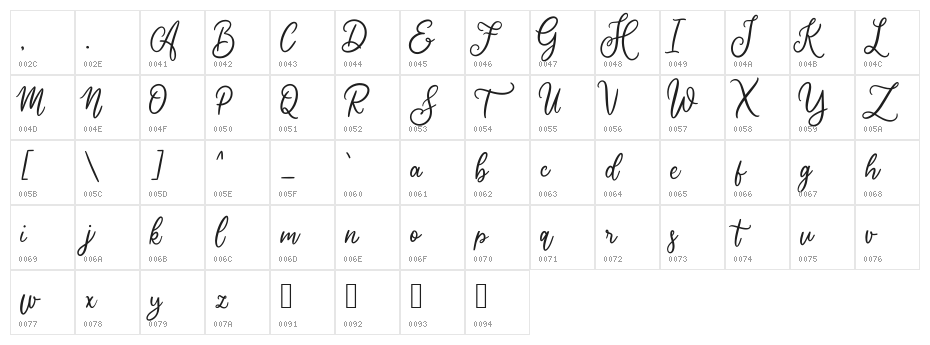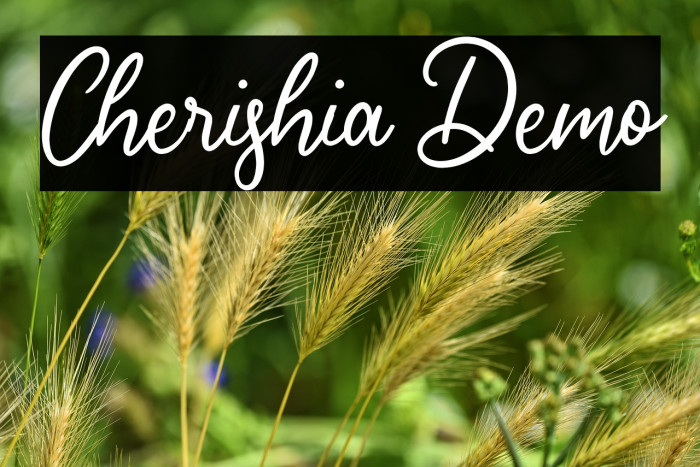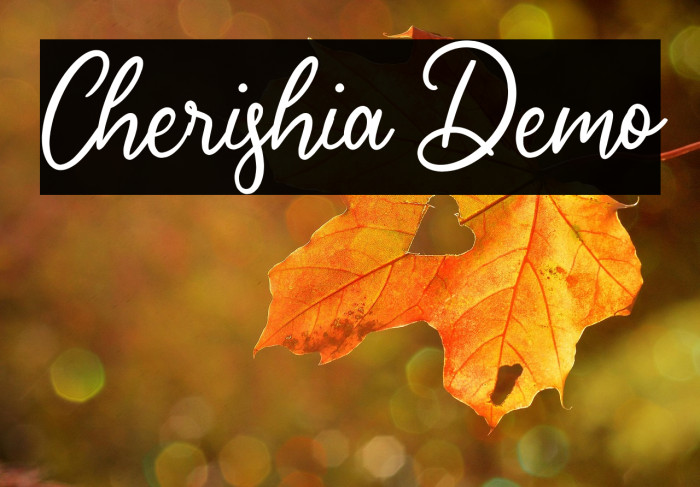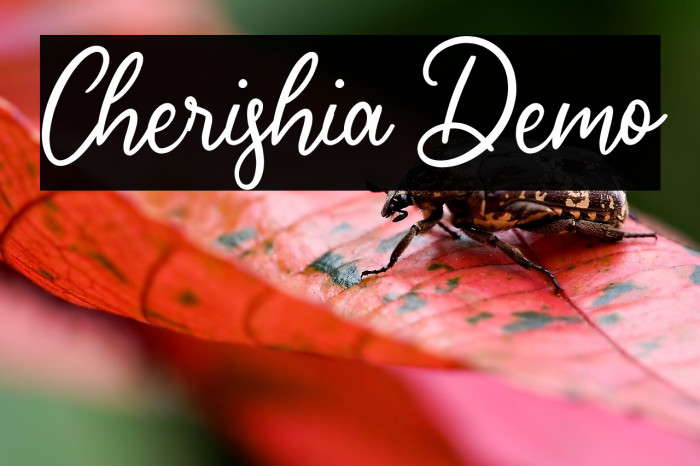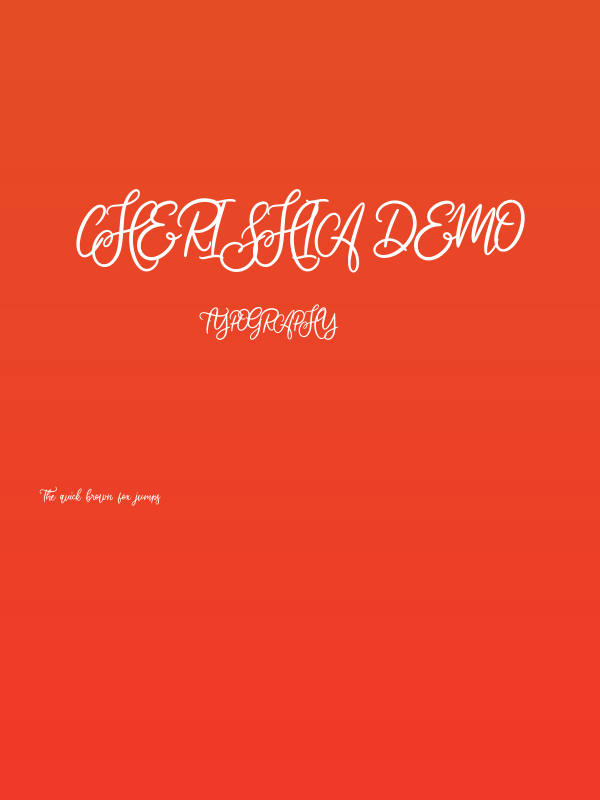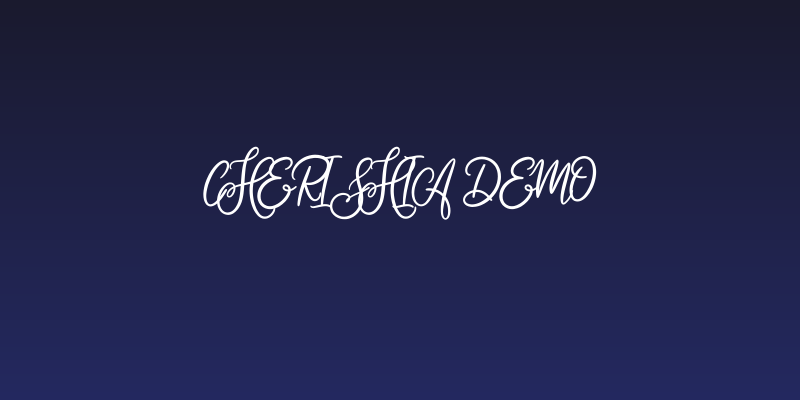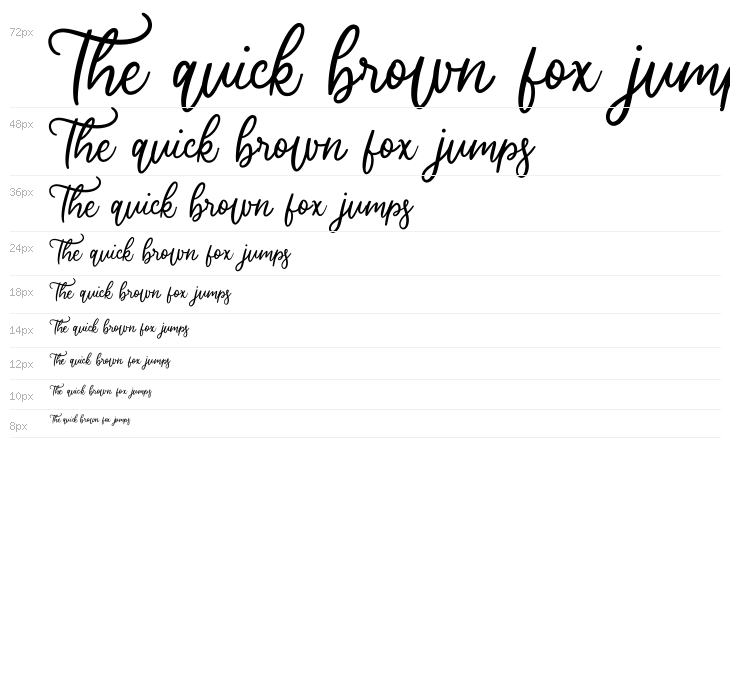
Cherishia Demo Font
Cherishia Demo Description
This font features an elegant and flowing script style, characterized by its intricate and decorative letterforms. The uppercase letters are particularly ornate, with sweeping curves and flourishes that give a sense of sophistication and grace. The lowercase letters maintain a consistent style, with smooth connections and a slightly more restrained design compared to the uppercase. The font is well-suited for creating a luxurious and refined aesthetic, making it ideal for formal invitations, branding, and other projects that require a touch of elegance. The characters are closely spaced, enhancing the script's cohesive look, while the contrast between thick and thin strokes adds to its visual appeal.
Overall StyleElegant
Use CaseLogos, Invitations, Decorative text
Proposed ProjectsIdeal for wedding invitations, luxury branding, elegant stationery, and decorative signage.